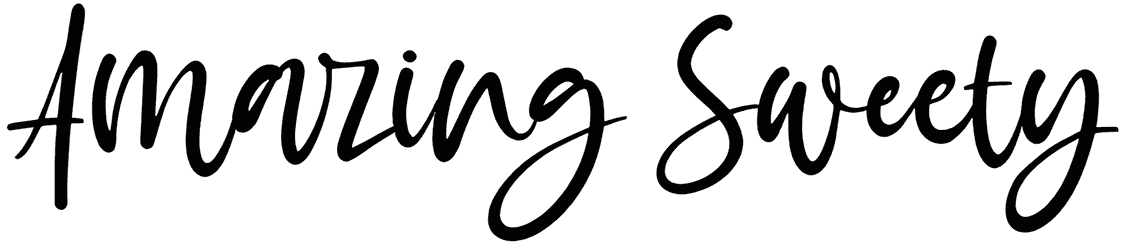
Amazing Sweety Font
Say hello to another handwritten font and bring your creative ideas into reality. This one can give your layouts a touch of glamour and elegance, so make use of it for branding, business cards, flyers, tattoos, and other needs. Bear in mind, Amazing Sweety lacks some numbers. Try it out and draw everyone’s attention.
Font By Almarkhatype Studio